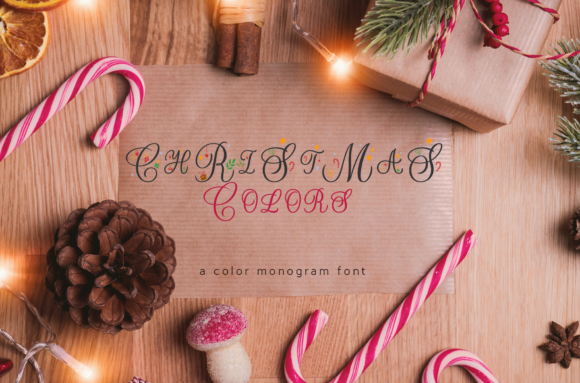
Introducing Christmas Colors Monogram, the color font that effortlessly blends sophistication and charm to light up your Christmas cards, wedding invitations, and any personal design project. Its beautiful hues will add a touch of celebration and festivity, evoking the warmth and joy of the season.
Journey into a world of creativity with Christmas Colors Monogram, the color font crafted by Saturday Champagne. With its radiant and eye-catching style, this font is a masterpiece that will illuminate your designs. Whether you're creating personalized greeting cards or adding a touch of enchantment to your wedding invitations, Christmas Colors Monogram will bring your vision to life.
Immerse yourself in a symphony of colors, where each letter dances with joy and merriment. This font is a celebration of life, perfect for capturing the essence of special moments and turning them into cherished memories. Let Christmas Colors Monogram be your artistic companion, guiding you through a creative journey that knows no bounds.
With Christmas Colors Monogram, you can craft designs that speak volumes. Its compatibility with PhotoShop, Illustrator, Silhouette, and Inkscape makes it a versatile tool for both professional designers and creative enthusiasts. Bring your ideas to life and witness the transformation as your designs take on a new, vibrant energy.
Don't let the magic of Christmas Colors Monogram pass you by. Dive into the world of color and creativity, and experience the joy of creating designs that captivate and inspire. Make a statement with every letter, and let your designs reflect the boundless beauty of the Christmas season.